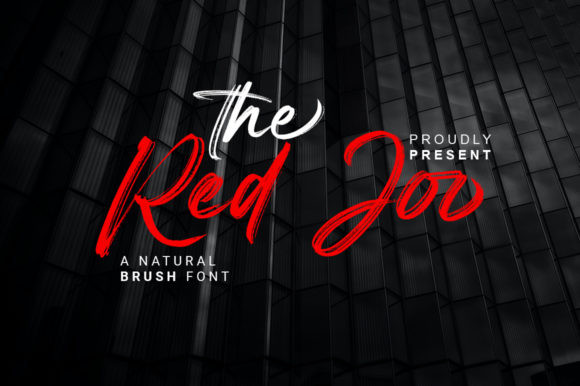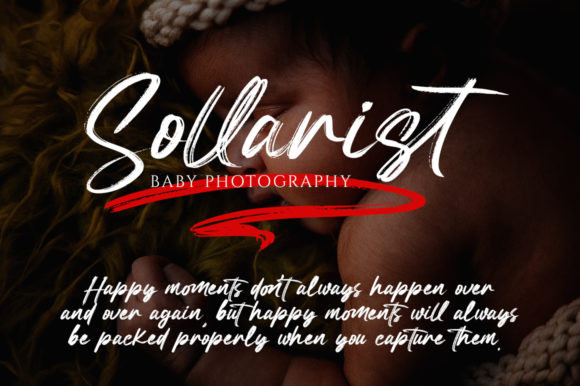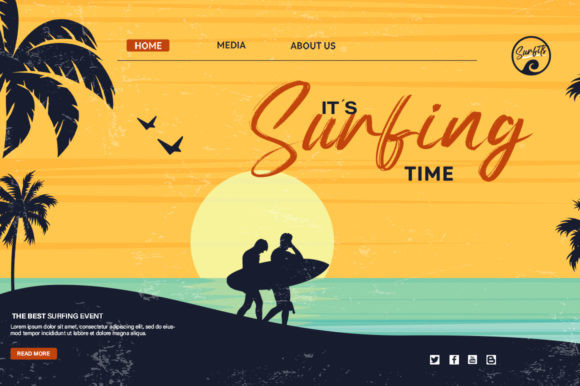
Red Joo Font
Red Joo FontRed Joo is a spectacular brush style script font. Add this font to your creative ideas and notice how it will make them stand out!